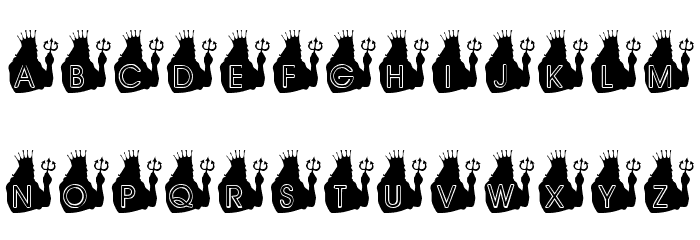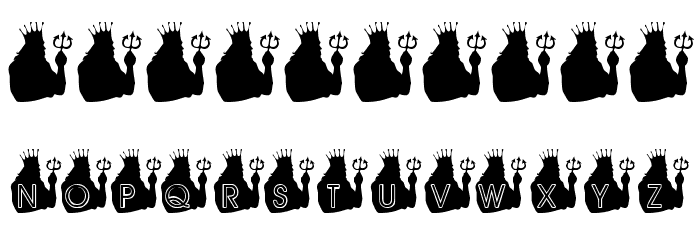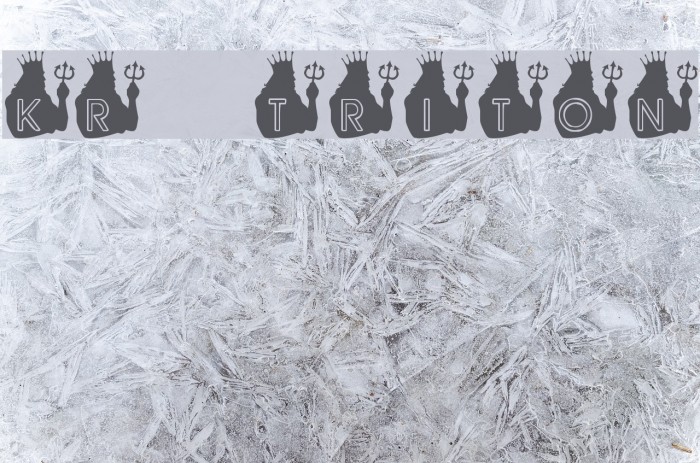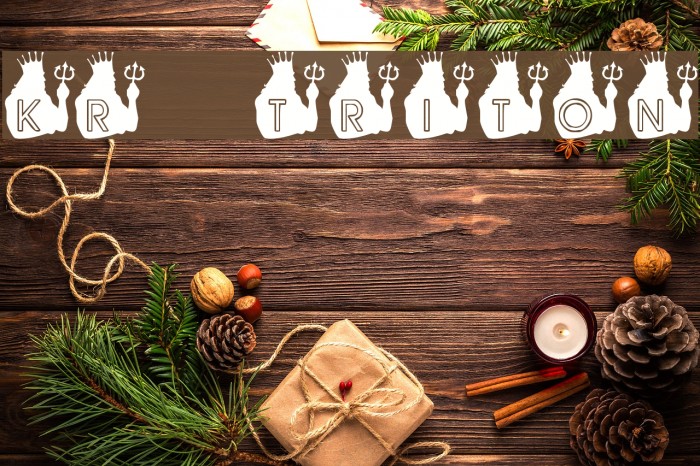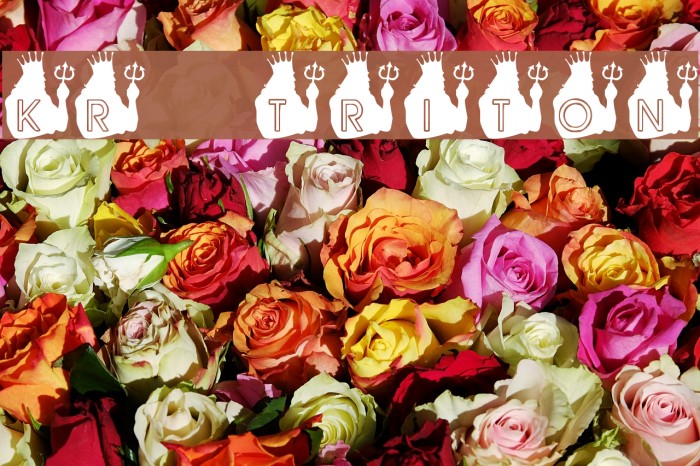
KR Triton Font
This decorative font features bold, uppercase letters with a unique nautical theme. Each character is encased within a silhouette of a trident-wielding figure, adding a playful and thematic element to the design. The letters themselves are sans-serif with a thick outline, providing a strong visual contrast against the solid black background of the silhouette. This font is particularly eye-catching and is designed to stand out, making it ideal for projects that require a bold statement. The consistent use of the trident motif throughout the character set ties the design together, creating a cohesive and thematic appearance.
A bold, decorative font with a nautical theme, featuring uppercase letters within trident silhouettes.
- Proposed Projects: Ideal for themed event posters, maritime-themed branding, or playful graphic design projects.